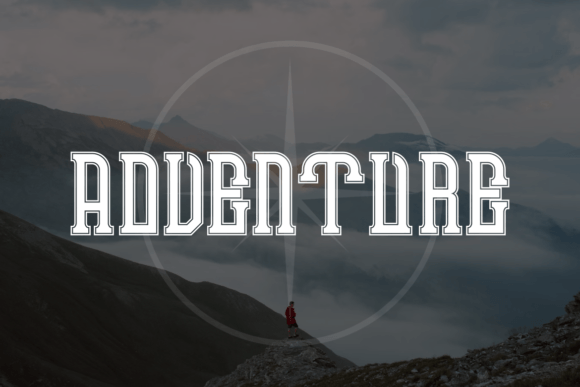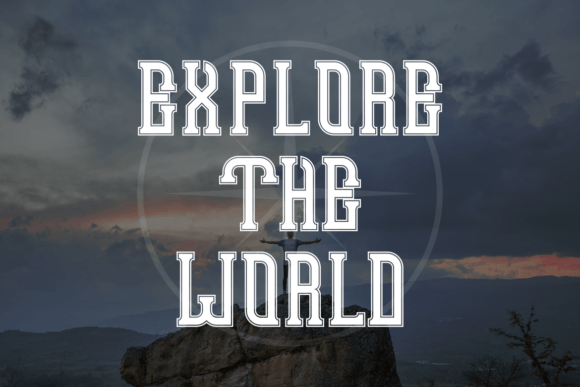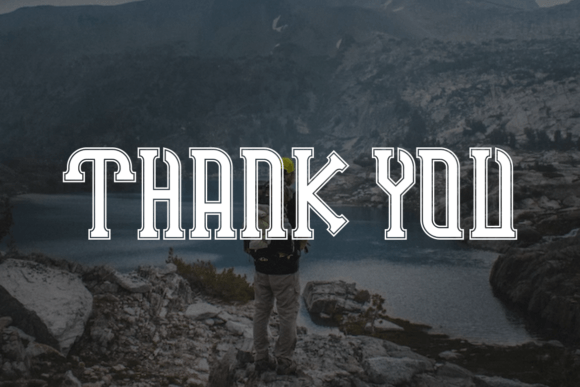
Introduction to Jejaki Font
Jejaki is a fun and cool display font.
Its modern and unique style makes it suitable for a wide range of design ideas .
Key Features of Jejaki Font